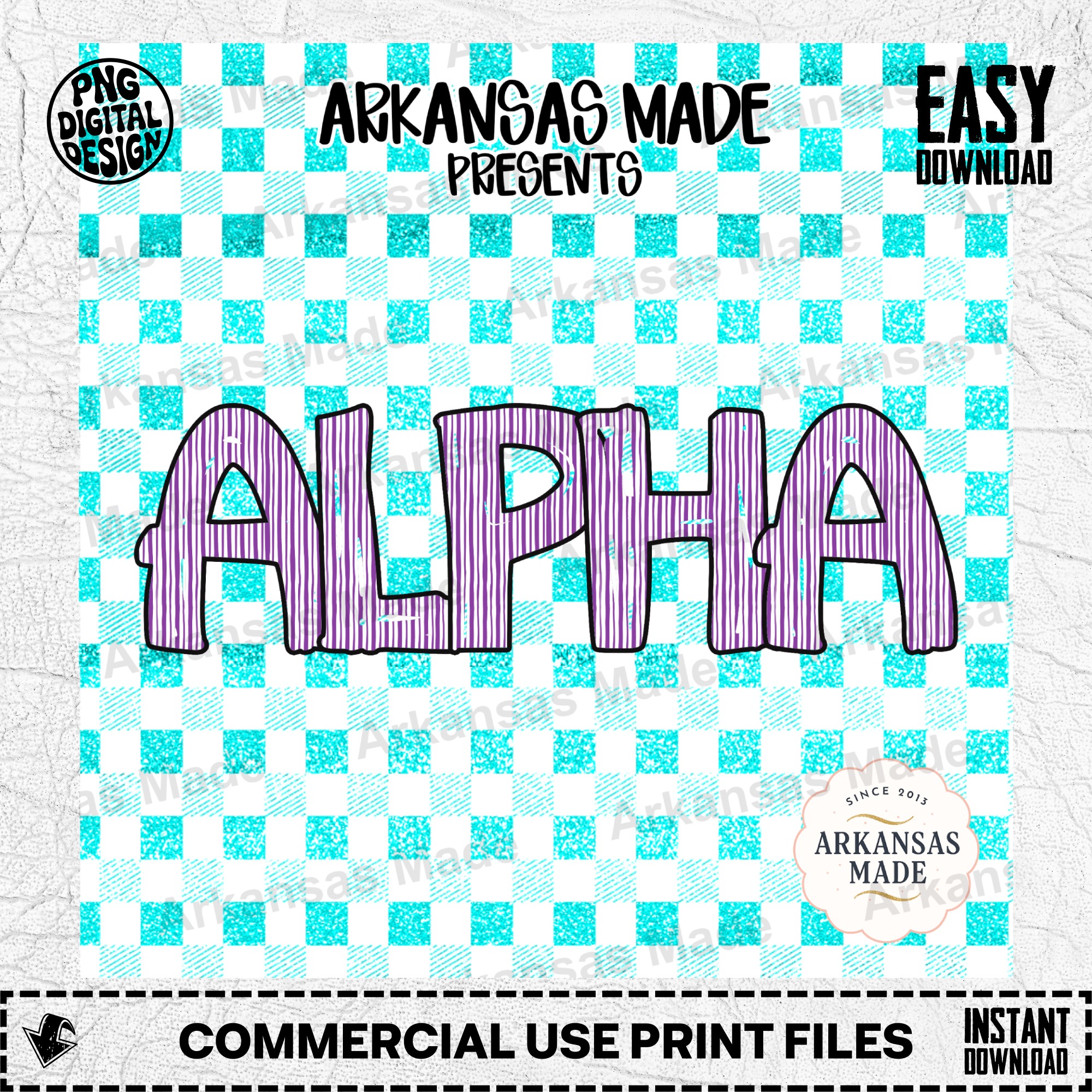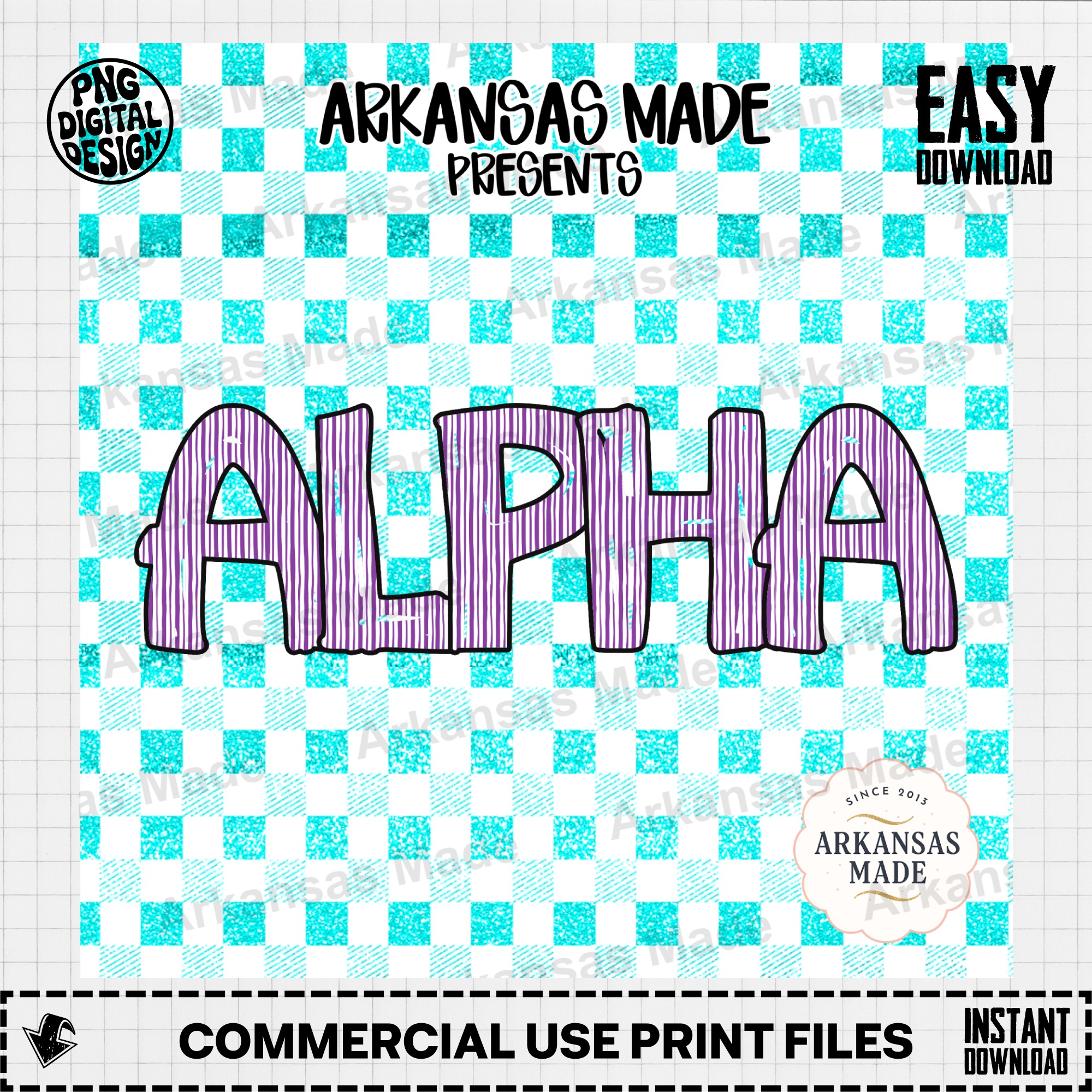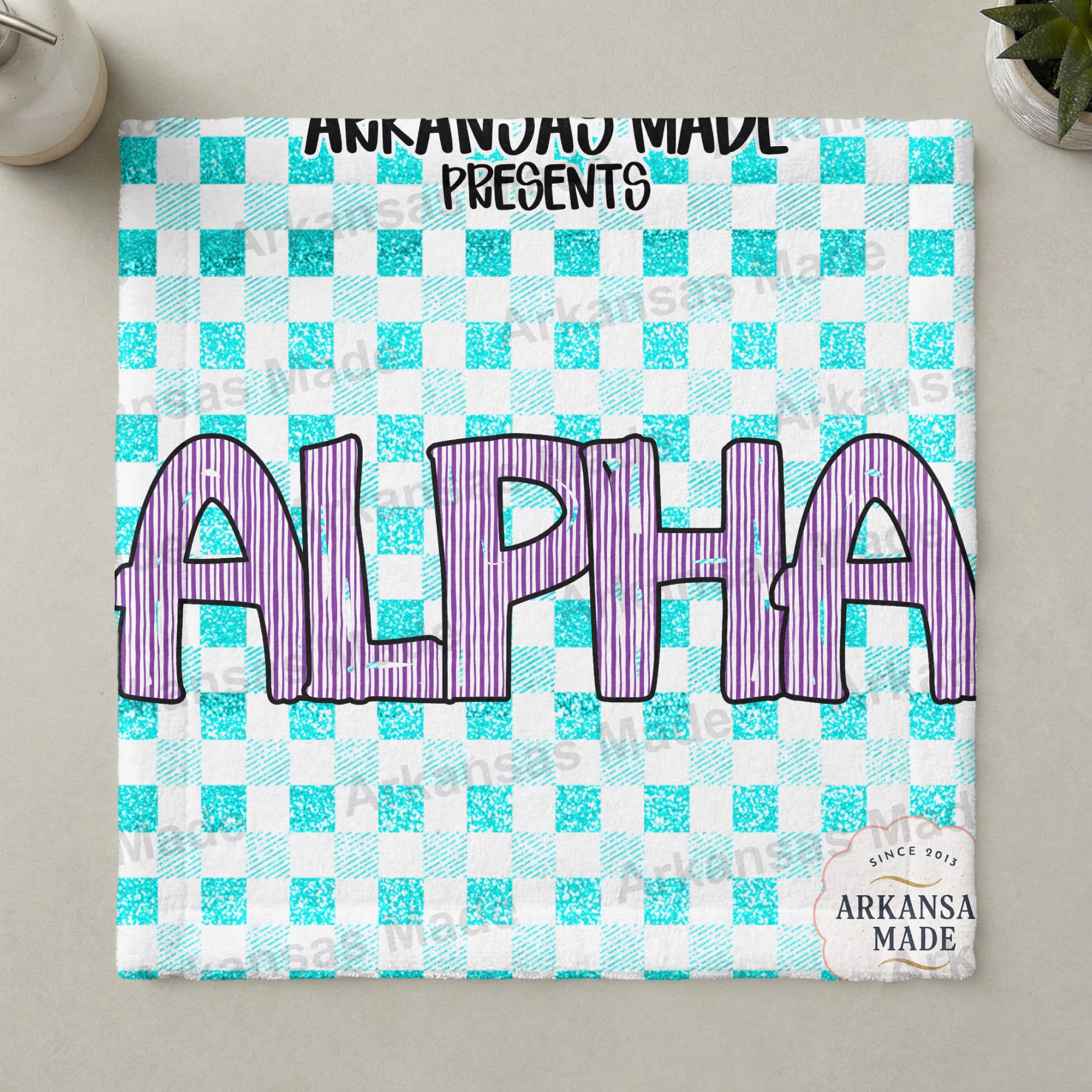
Elevate your projects with this vibrant Purple Striped Alpha Set Digital Download. Perfect for personalized designs and creative crafting. This unique alphabet letters PNG bundle features a playful purple striped fill with a bold outline, set against a lively teal faux glitter plaid background. Ideal for DIY enthusiasts, small business owners, and crafters looking to add a touch of cheerful personality to t-shirts, tumblers, party decor, or scrapbooking. Create memorable custom gifts for birthdays, teacher appreciation, or special events with this versatile digital resource.